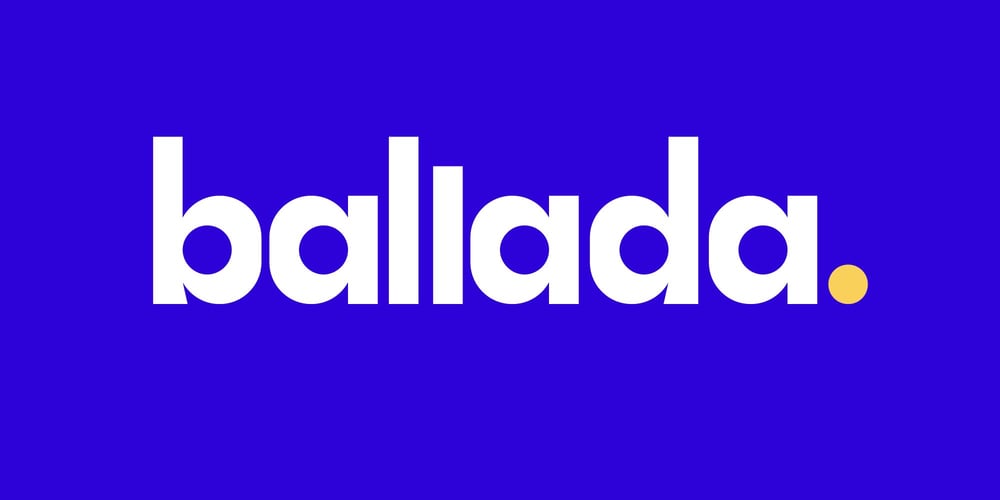
Ballada
Ballada font
Ballada Font Family was designed by Iwan Alwan and published by Artiveko. Ballada contains 2 styles and family package options. Ballada is a creative sans serif font by Iwan Alwan, featuring dynamic and artistic letterforms that infuse personality into any project. Ideal for branding, social media, and eye-catching headlines, Ballada combines clean lines with unique flair for a contemporary look. With multilingual support, ligatures, and alternates, Ballada is versatile yet distinctive, making it perfect for designs that seek a stylish, expressive, and modern touch.